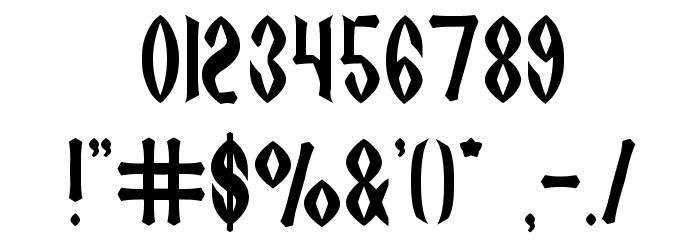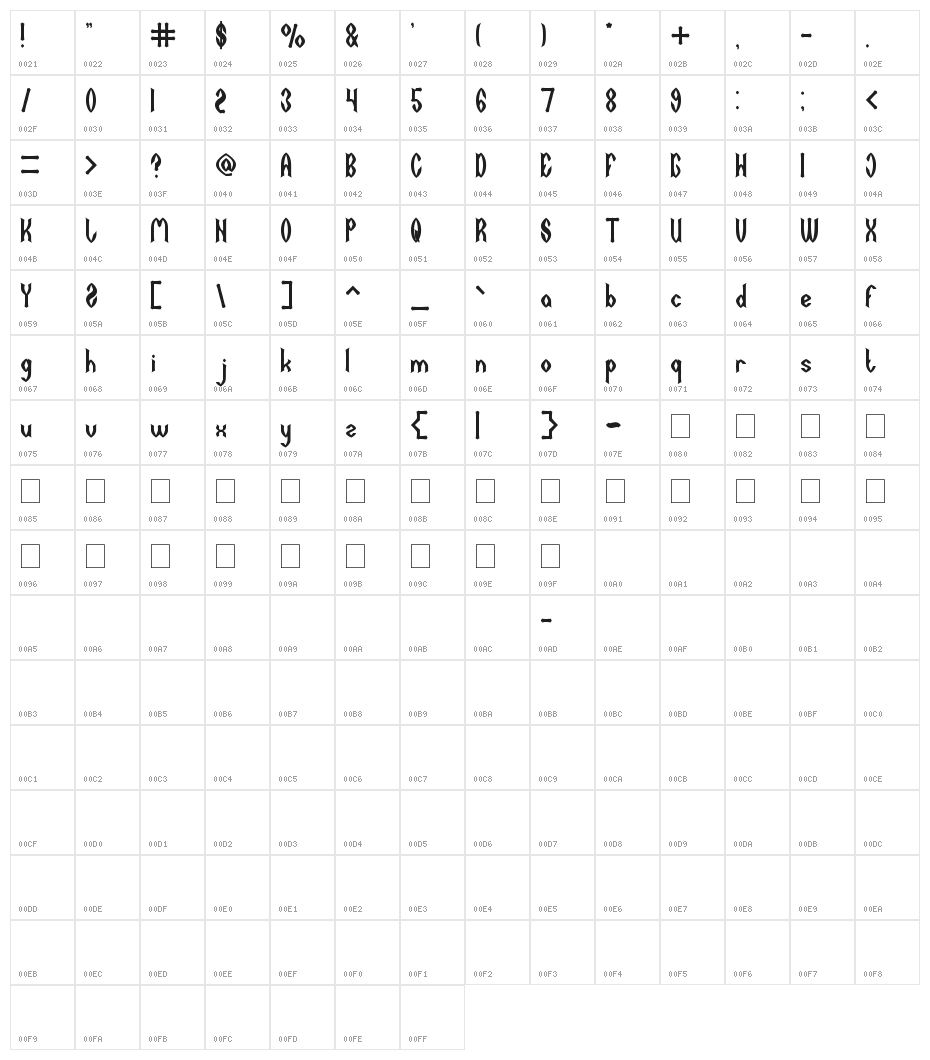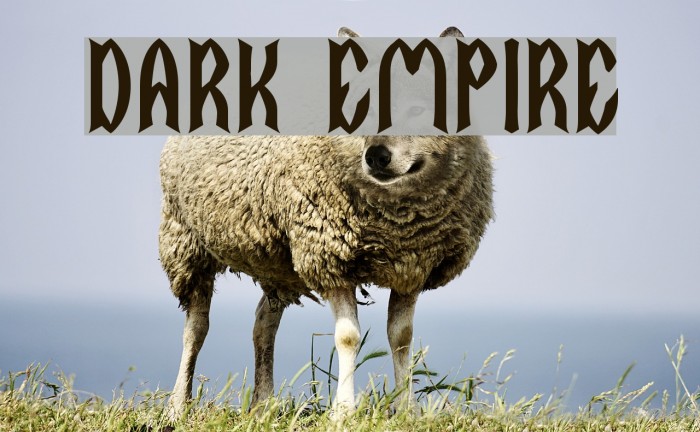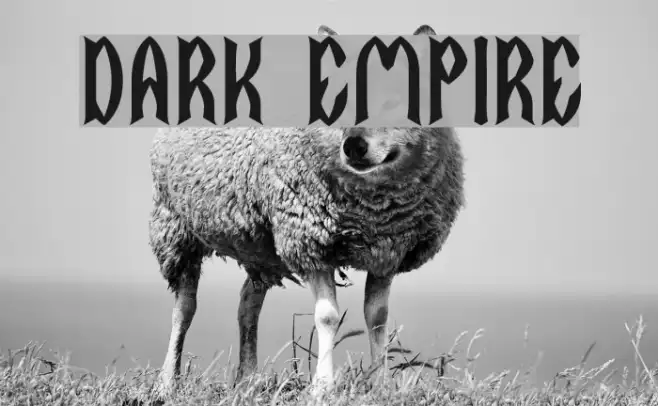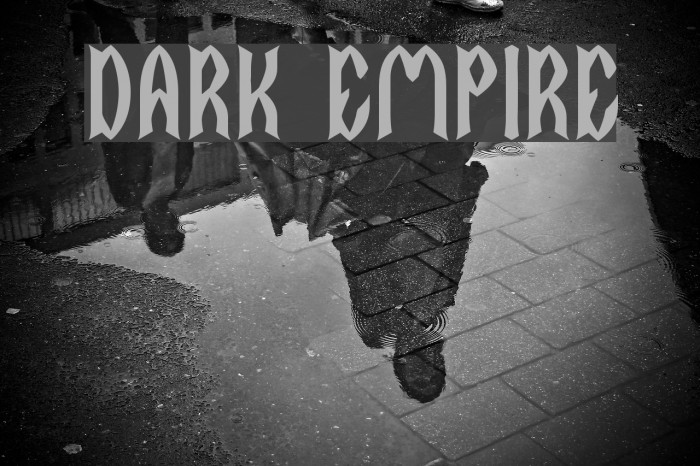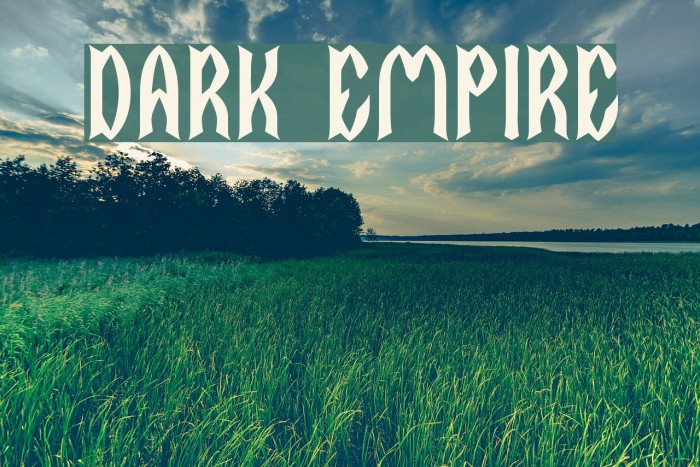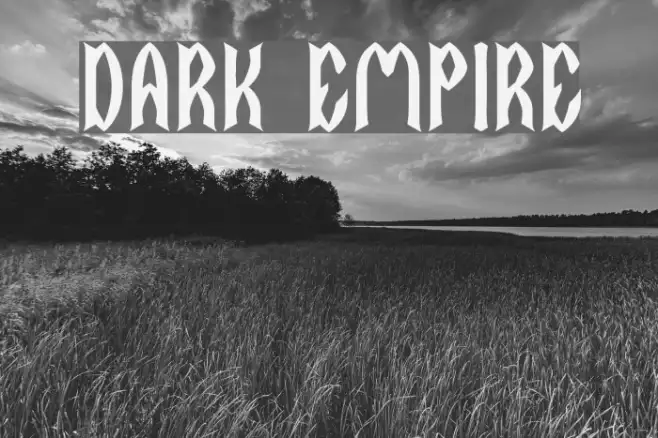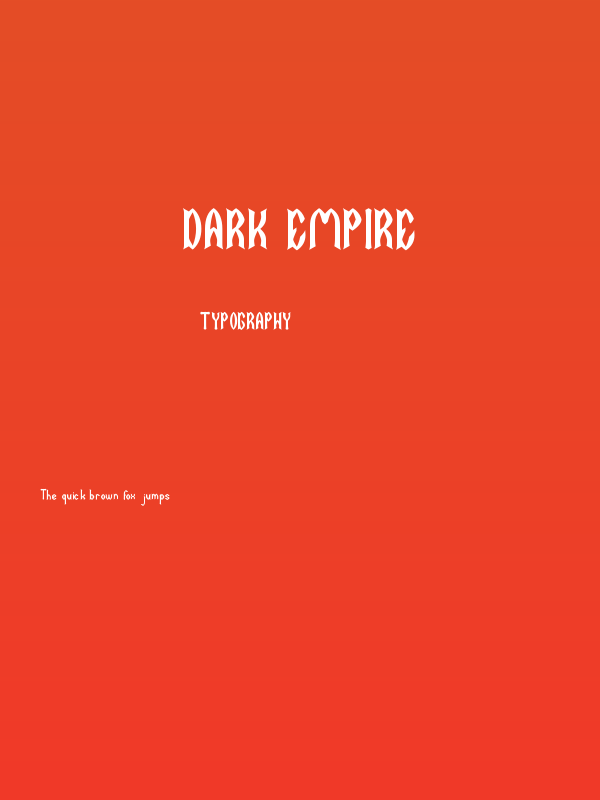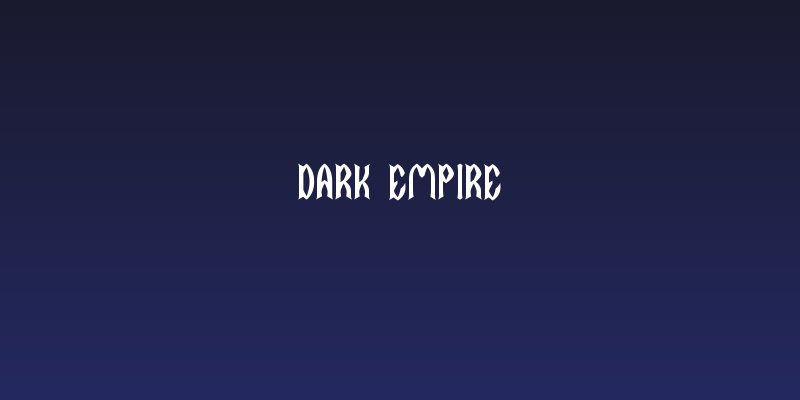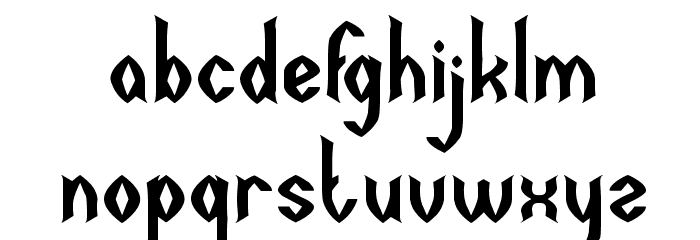
DARK EMPIRE Font
DARK EMPIRE Description
This font features a bold, gothic-inspired design with sharp, angular lines and a strong presence. The uppercase letters are particularly striking, with a medieval feel that evokes a sense of mystery and power. The lowercase letters maintain the same angular style, providing a cohesive look across the alphabet. Numbers and special characters are designed with the same bold strokes, ensuring consistency throughout. This font is ideal for projects that require a dramatic and impactful typeface, such as posters, book covers, or branding for edgy or alternative products.
| Overall Style | Gothic, Dramatic |
| Proposed Projects | Ideal for posters, book covers, branding for edgy products, or any project needing a dramatic typeface. |